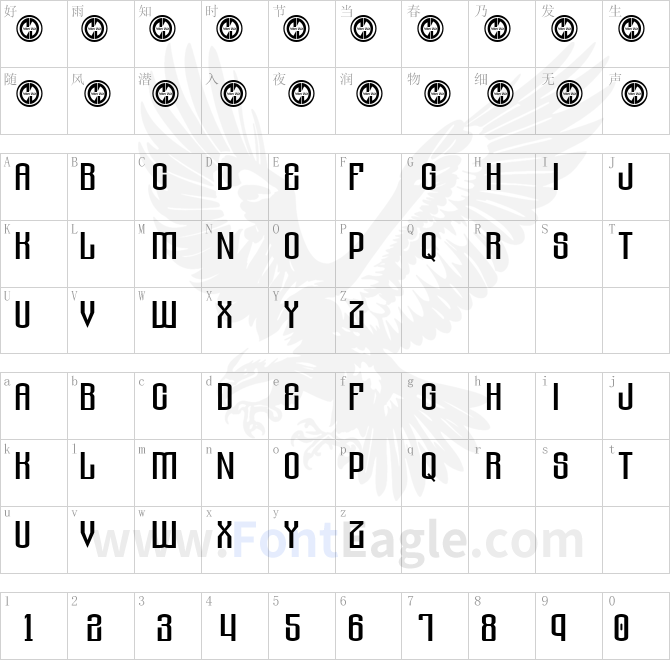
Solace for Sadist Regular.ttf Font Image
Solace for Sadist Regular.ttf Base Font Information
- Font name:Solace for Sadist
- Font Full Name:Solace for Sadist